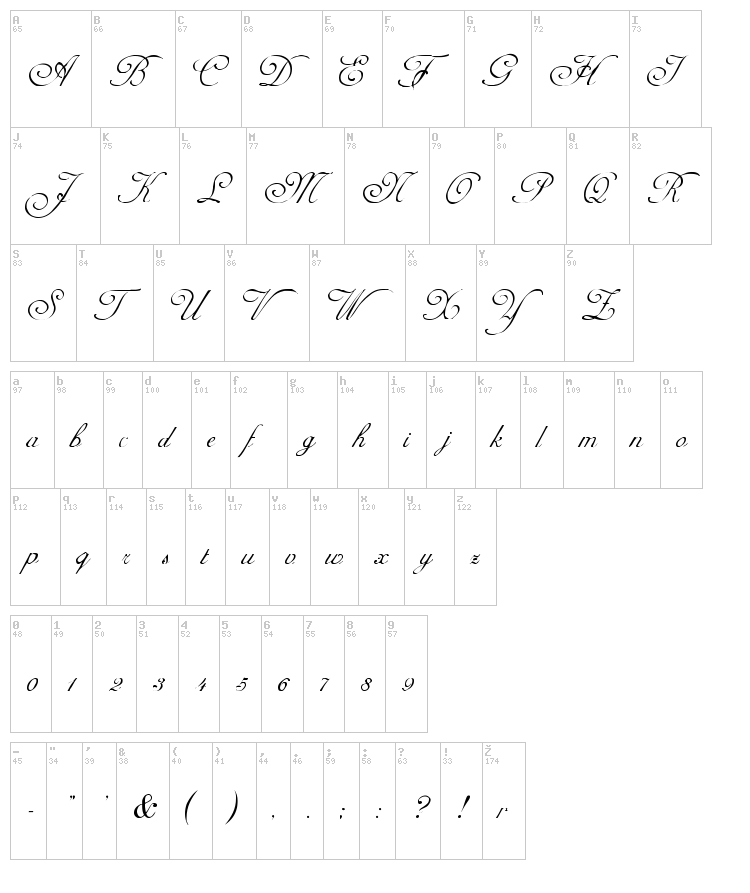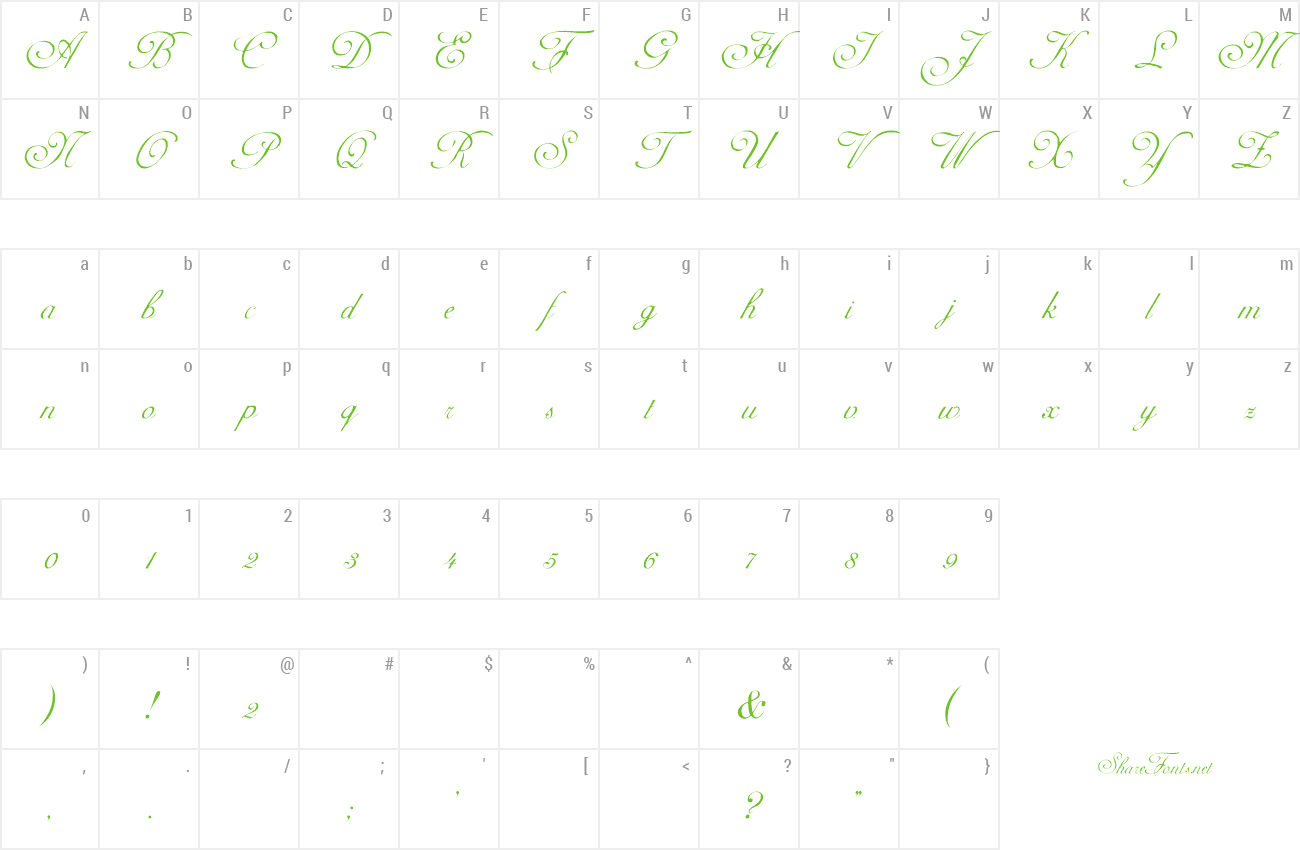
Free and Premium Quality Fonts - Best Premium FontsDownload free for commercial useadd to favoritesshare adinekirnberg script font is a german art nouveau script font containing a full alphabet and most punctuation. The zip archive contains the following files. On this page you can download adine kirnberg font version 1000 2005 initial release which belongs to the family adine kirnberg regular tracing.
Adine kirnberg script font free download. Designer alexandra gophmann for communication use the following address. Download free font adine kirnberg by dieter steffmann from category various. It is a beuatiful rounded script with very striking caps and relatively small lower case characters. Adine kirnberg script is a script calligraphy font designed by david rakowski.